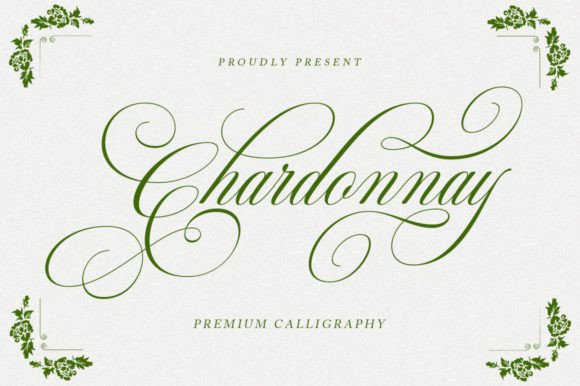
Introducing Chardonnay Font: Elevate Your Typography with Elegance
The world of typography is vast and diverse, with numerous fonts designed to cater to various tastes and preferences. Among these, the Chardonnay font stands out for its unique blend of elegance and versatility. In this article, we’ll delve into the specifics of the Chardonnay font, exploring its characteristics, uses, and what makes it a preferred choice for designers and typography enthusiasts alike.
What is Chardonnay Font?
Chardonnay Script is not just another font; it’s a premium calligraphy font that brings a touch of sophistication to any project. Handcrafted with a copper plate stylus, this font exudes a sense of luxury and refinement. Its creation process involved meticulous attention to detail, ensuring that each glyph is not only aesthetically pleasing but also highly legible.
Key Features of Chardonnay Script
- Handcrafted with a Copper Plate Stylus: The font’s unique texture and fluidity are a direct result of its handcrafted nature, giving it a personal touch that’s hard to replicate with digital fonts alone.
- Premium Calligraphy: As a premium calligraphy font, Chardonnay Script offers a level of quality and elegance that’s perfect for high-end projects.
- Alternatives, Style Sets, Ligatures, and Swashes: The font includes a variety of alternatives, style sets, ligatures, and swashes, providing users with extensive customization options to match their project’s tone and style.
- Stylized Lowercase Glyphs: Each lowercase glyph has been stylized to ensure that the text not only reads well but also looks visually appealing.
Uses of Chardonnay Script
Given its elegant and versatile nature, Chardonnay Script finds applications in various design projects. Here are some of the most popular uses:
Ideal for:
- Branding: The font’s unique and sophisticated look makes it perfect for branding projects where establishing a luxurious image is crucial.
- Invitations and Wedding Cards: For invitations, wedding cards, or any formal event, Chardonnay Script adds a touch of elegance and class.
- Quotes and Typography Art: The stylistic elements of the font make it ideal for creating visually stunning quotes and typography art.
Why Choose Chardonnay Script?
In a world filled with countless fonts, why should Chardonnay Script be your go-to choice? Here are a few compelling reasons:
Standing Out in the Crowd
- Uniqueness: Chardonnay Script’s handcrafted nature and distinctive style ensure that your project stands out from the crowd.
- Versatility: Whether it’s for digital use or print, Chardonnay Script adapts seamlessly, making it a versatile tool in your typography arsenal.
- Elegance: The font’s inherent elegance makes it suitable for projects that demand a high level of sophistication.
How to Use Chardonnay Script Effectively
To make the most out of Chardonnay Script, consider the following tips:
Tips for Effective Use
- Pair with Complementary Fonts: When pairing Chardonnay Script with other fonts, choose ones that complement its elegance without overpowering it.
- Adjust Kerning and Leading: Pay attention to kerning and leading to ensure that the text is not only readable but also visually appealing.
- Utilize Open-Type Features: Explore the font’s open-type features, such as ligatures and swashes, to add a personal touch to your typography.
Chardonnay Script is more than just a font; it’s a tool that can elevate your design projects to new heights of elegance and sophistication. Its unique blend of traditional calligraphy and modern typography makes it a versatile choice for a wide range of applications. Whether you’re working on a branding project, designing wedding invitations, or creating typography art, Chardonnay Script offers the perfect combination of style, elegance, and versatility.
Embrace the Elegance of Chardonnay Script
In the world of typography, the right font can make all the difference. With Chardonnay Script, you have the opportunity to add a touch of luxury and refinement to your projects. So, why settle for ordinary when you can create something truly extraordinary with Chardonnay Script?